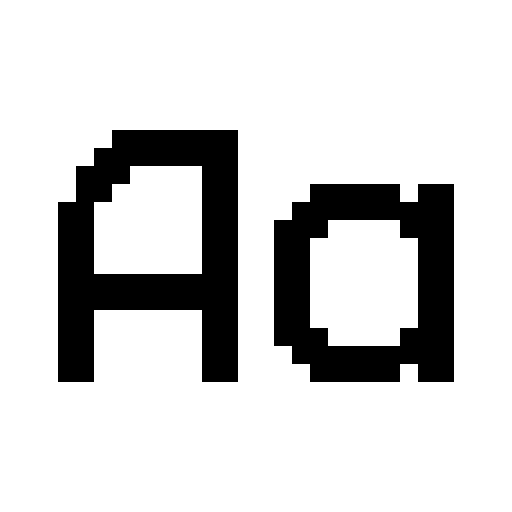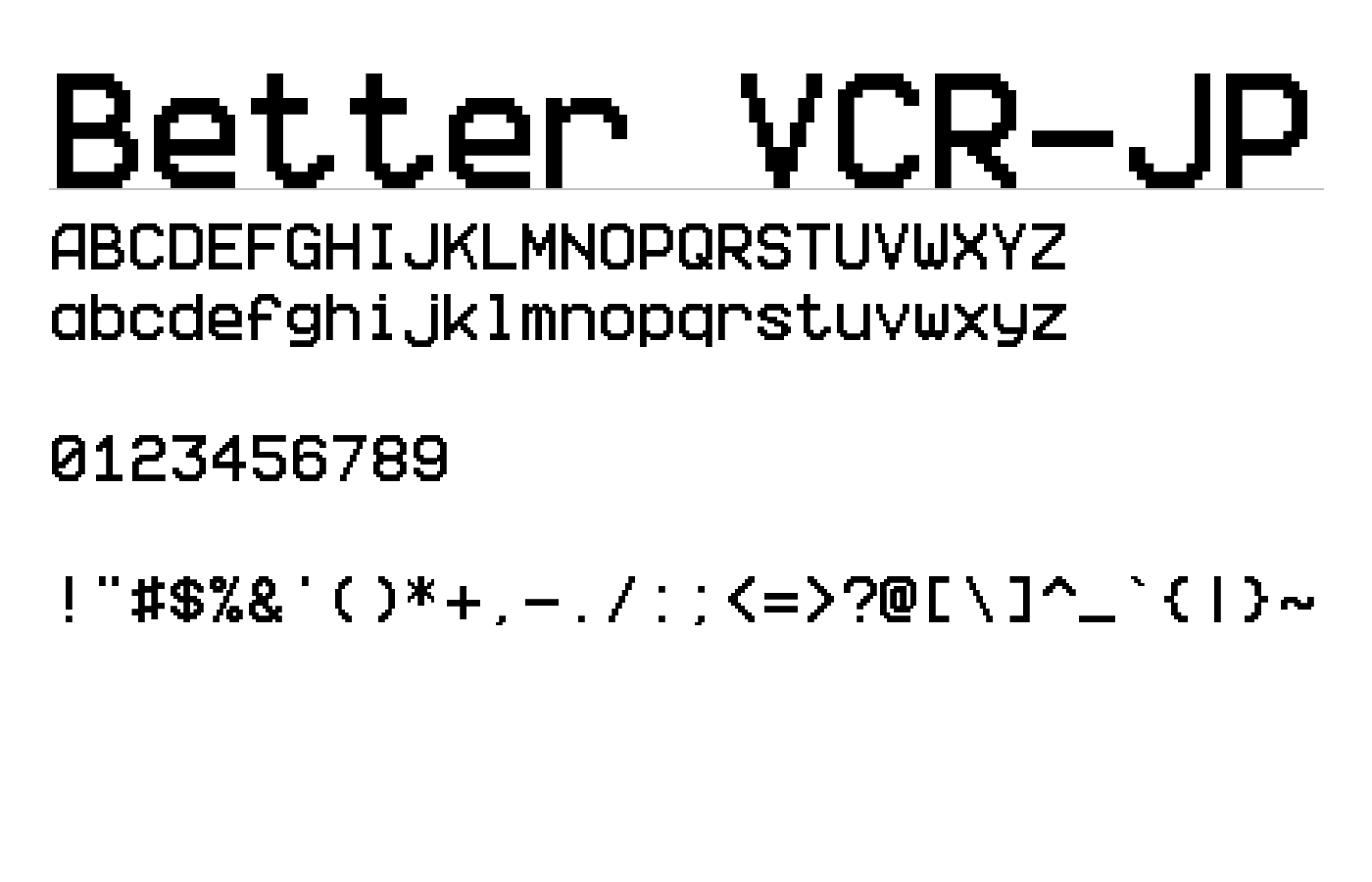
Better VCR-JP is a pixelated, monospaced sans serif font that captures a retro, digital aesthetic reminiscent of vintage computer screens and classic video games. Its clean, blocky letterforms combine a straightforward, techy feel with high readability, making it perfect for pixel art, coding interfaces, and nostalgic design projects. This font works best in digital contexts, gaming branding, and any creative work seeking to evoke an old-school, tech-savvy vibe.
Better VCR-JP Font
About Better VCR-JP Font